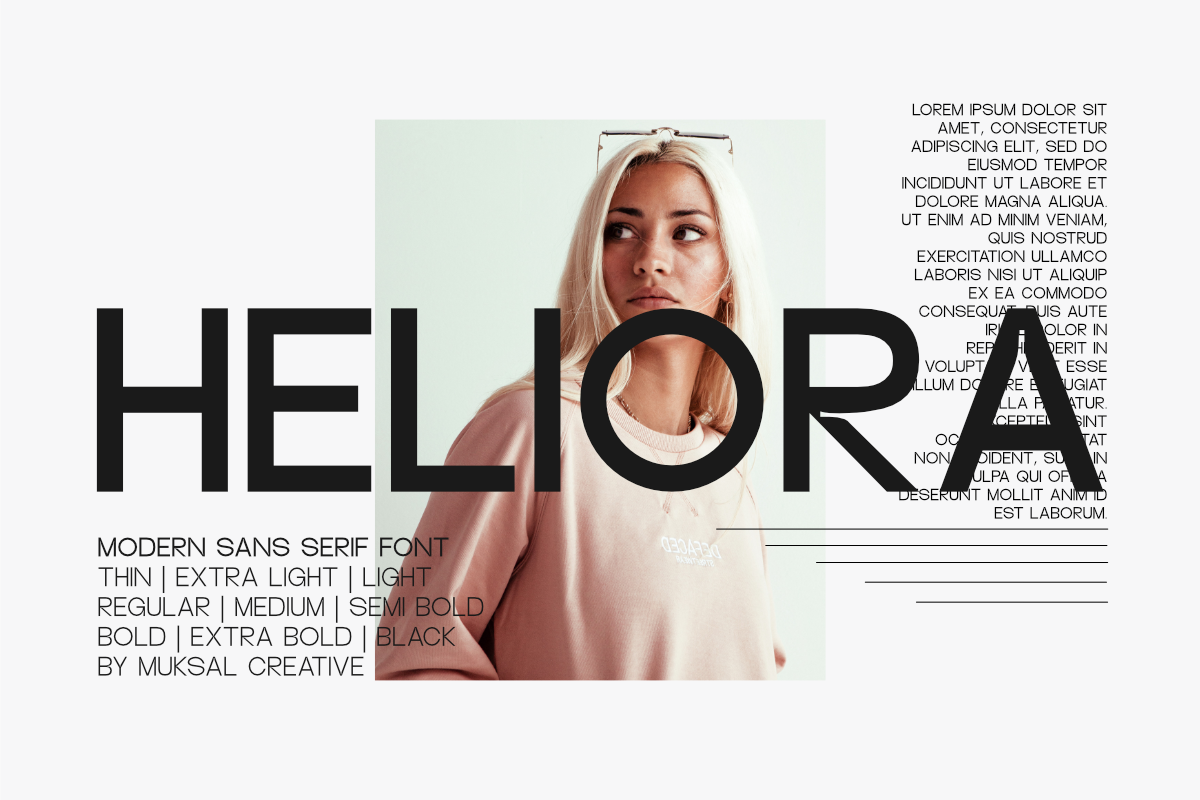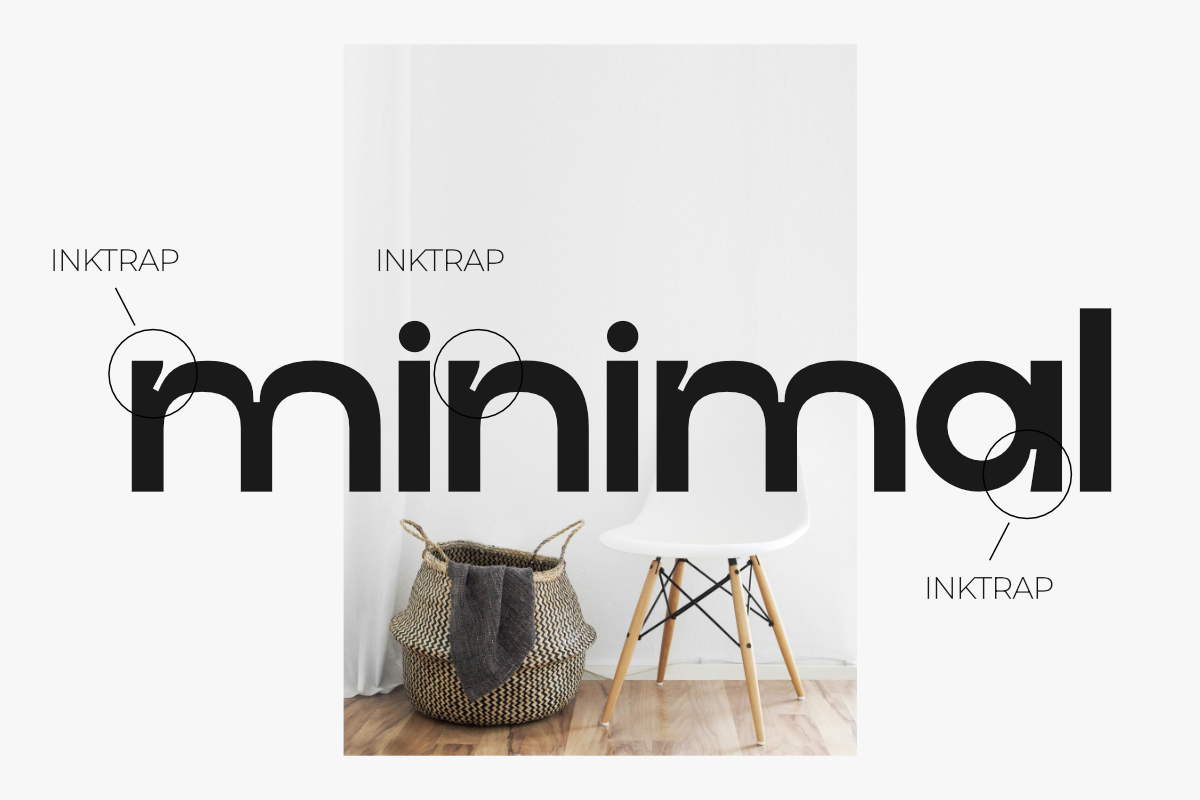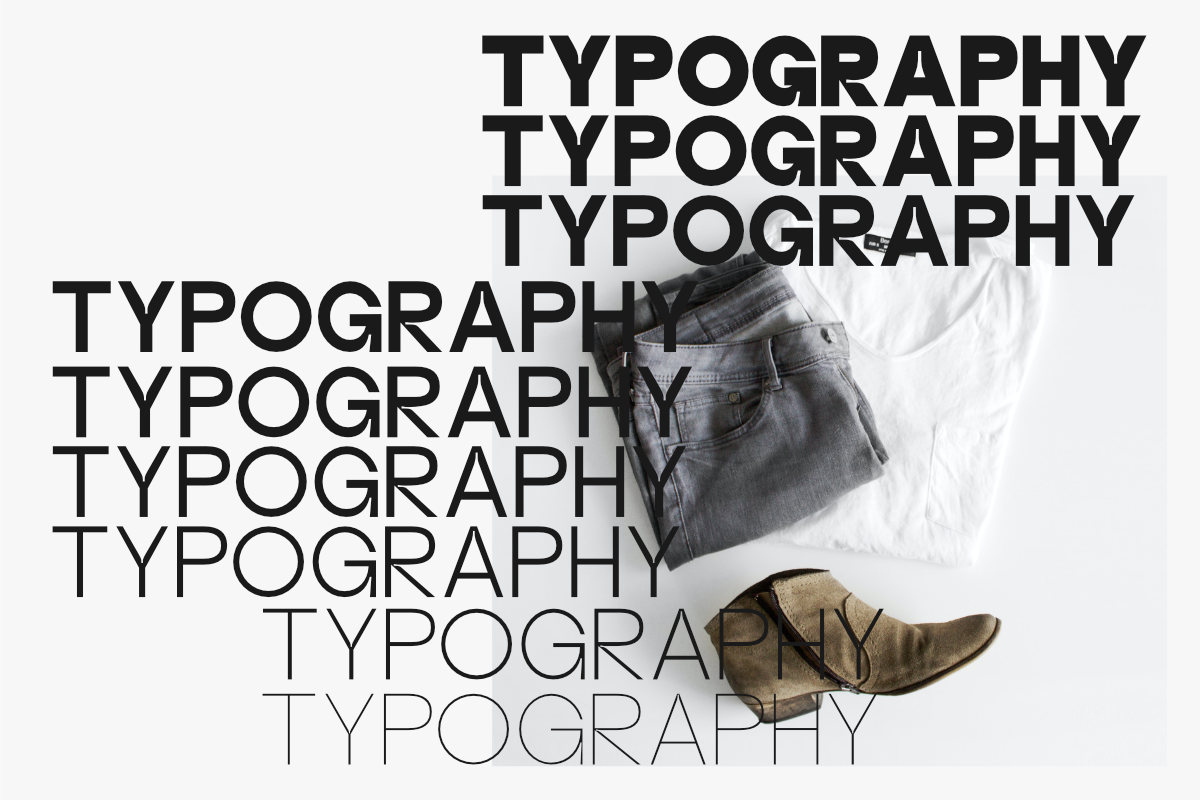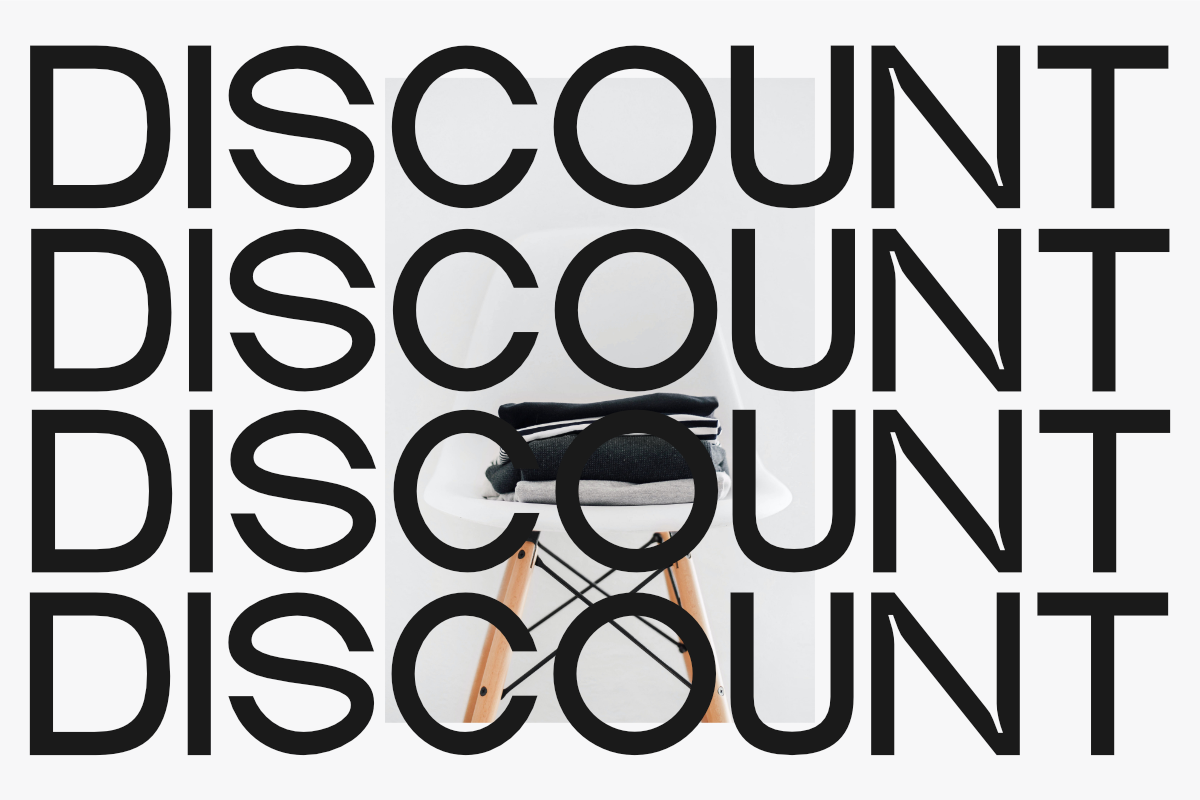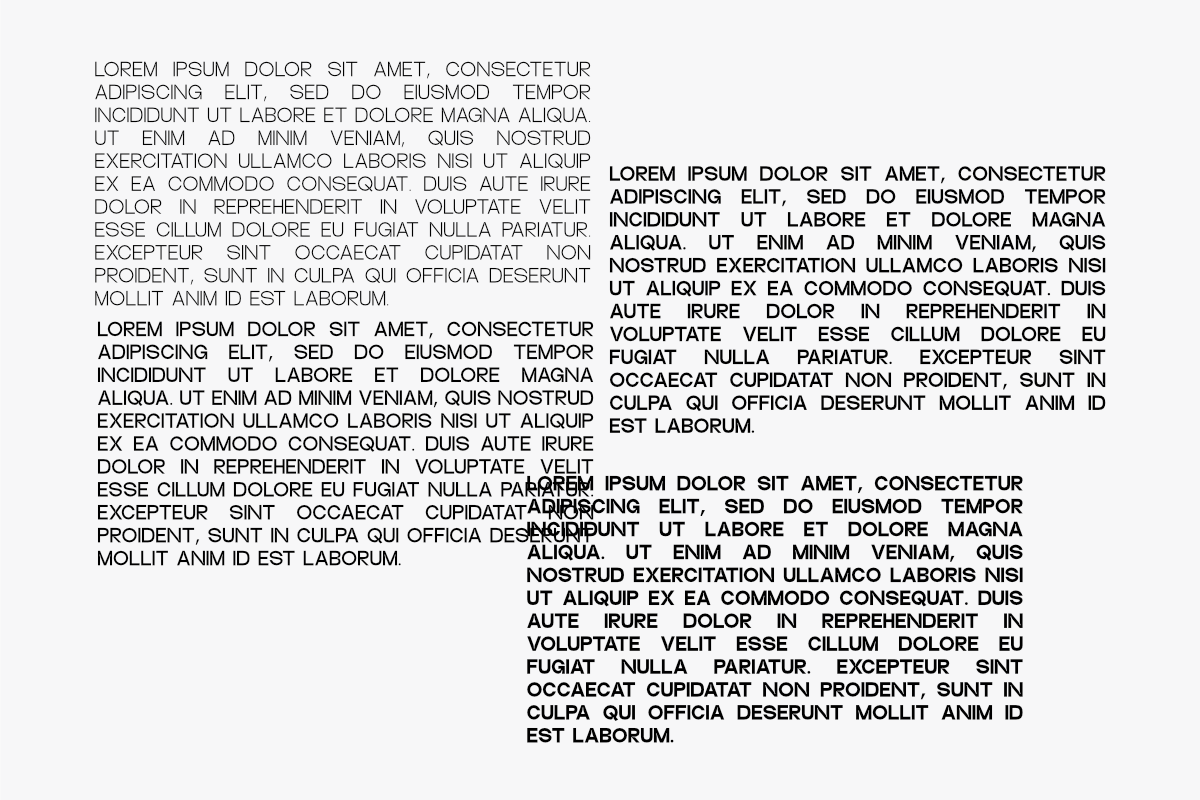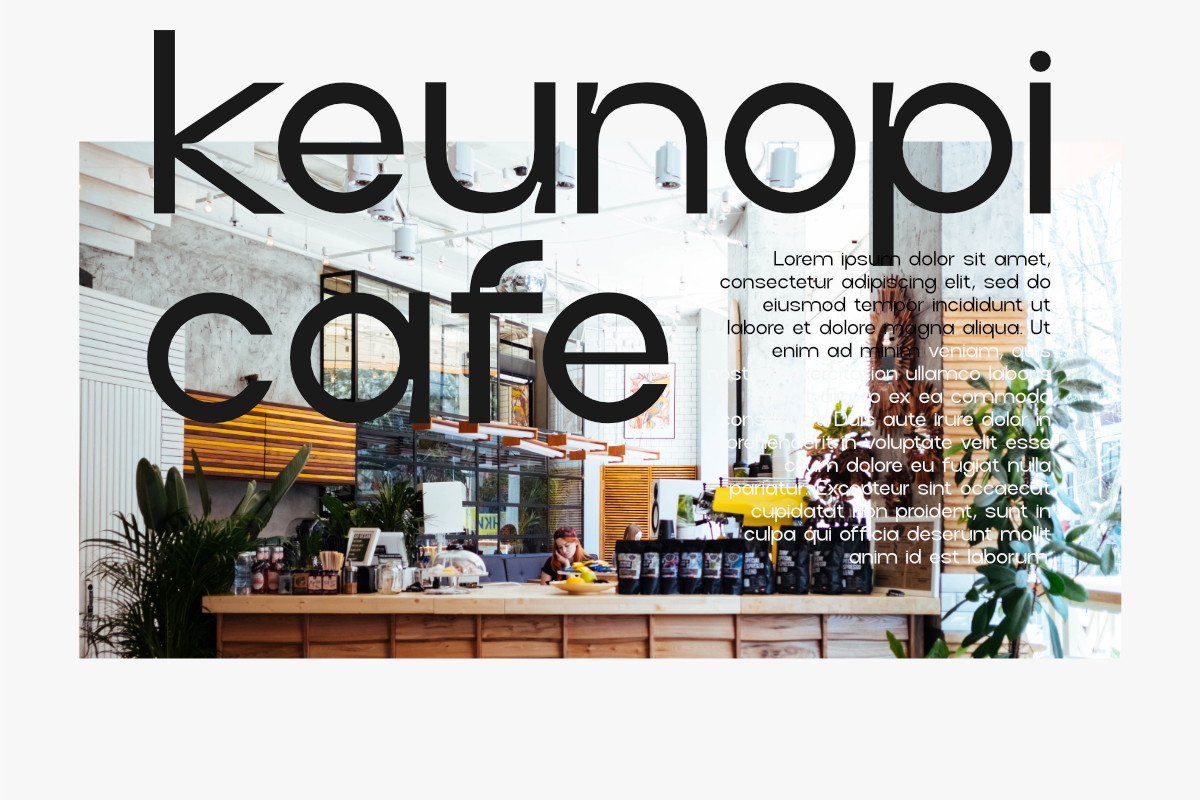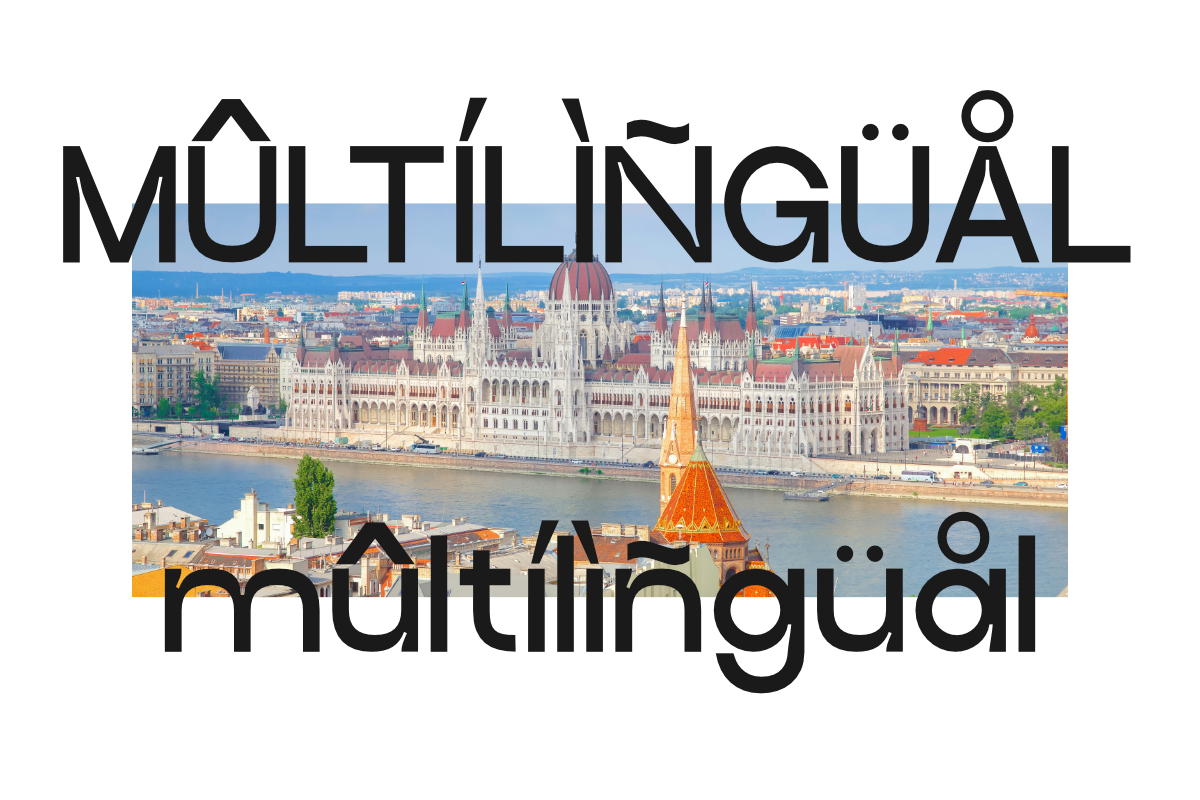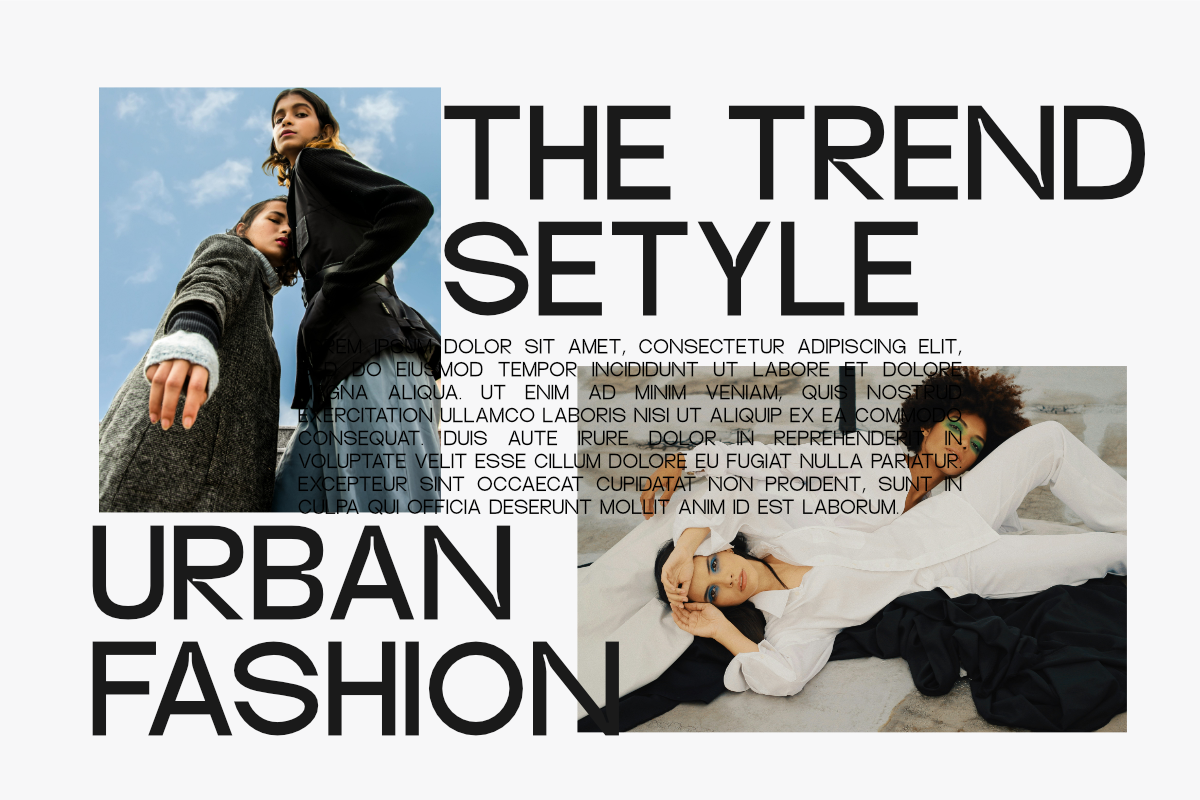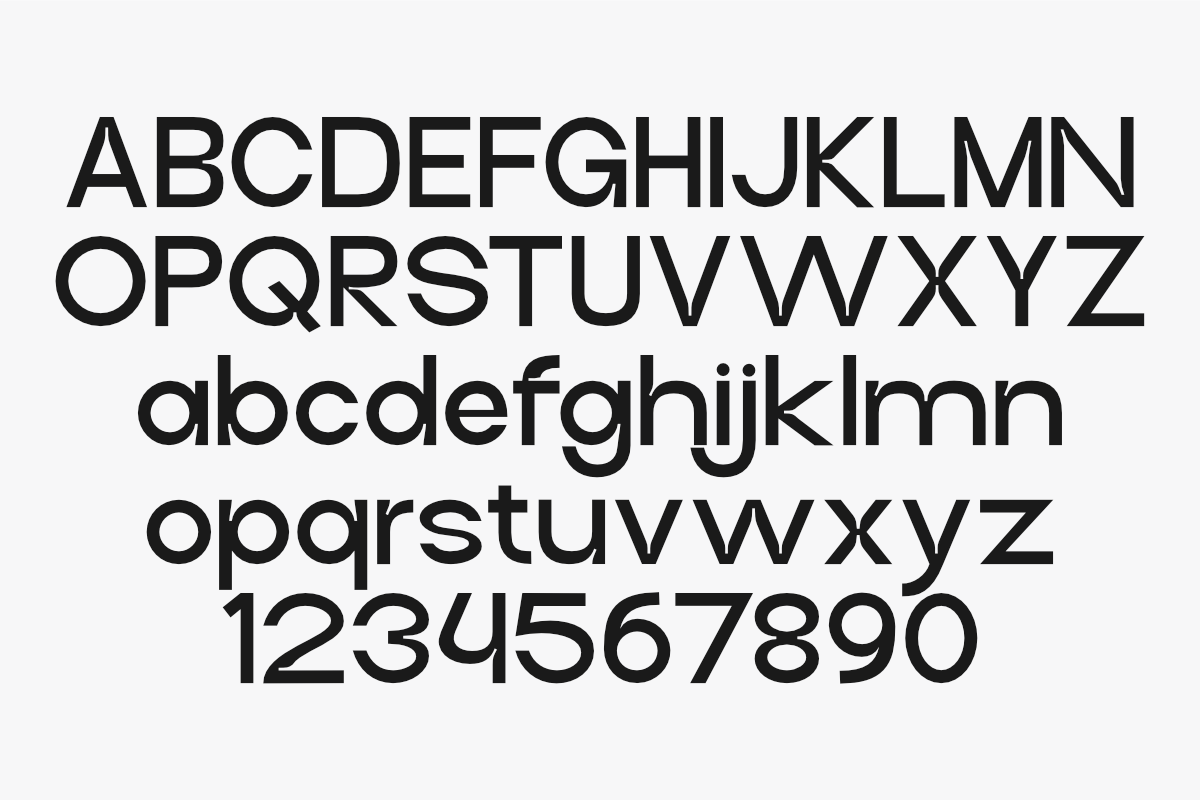
Heliora
Heliora is a modern sans-serif font family with nine weights, ranging from Thin to Black. Its design blends clean lines with balanced proportions, making it an ideal choice for various design needs, whether for digital or print. Heliora is crafted to offer maximum versatility, allowing users to pair elegant thin characters with strong bold versions to create dynamic and expressive typography. Perfect for branding, editorial, and web design, Heliora delivers clarity and style in every weight. With a distinctive simplicity, this font invites creativity without sacrificing legibility, making it relevant for a wide range of contemporary design applications.